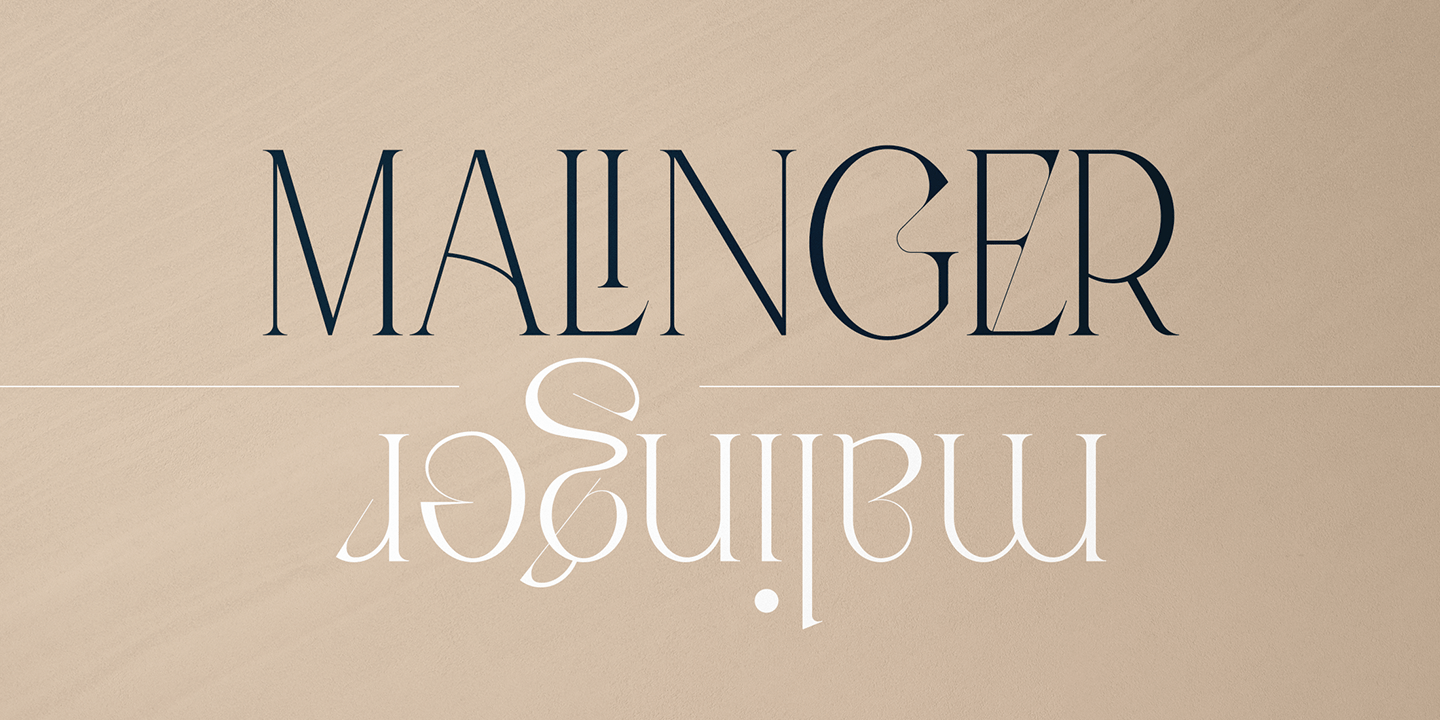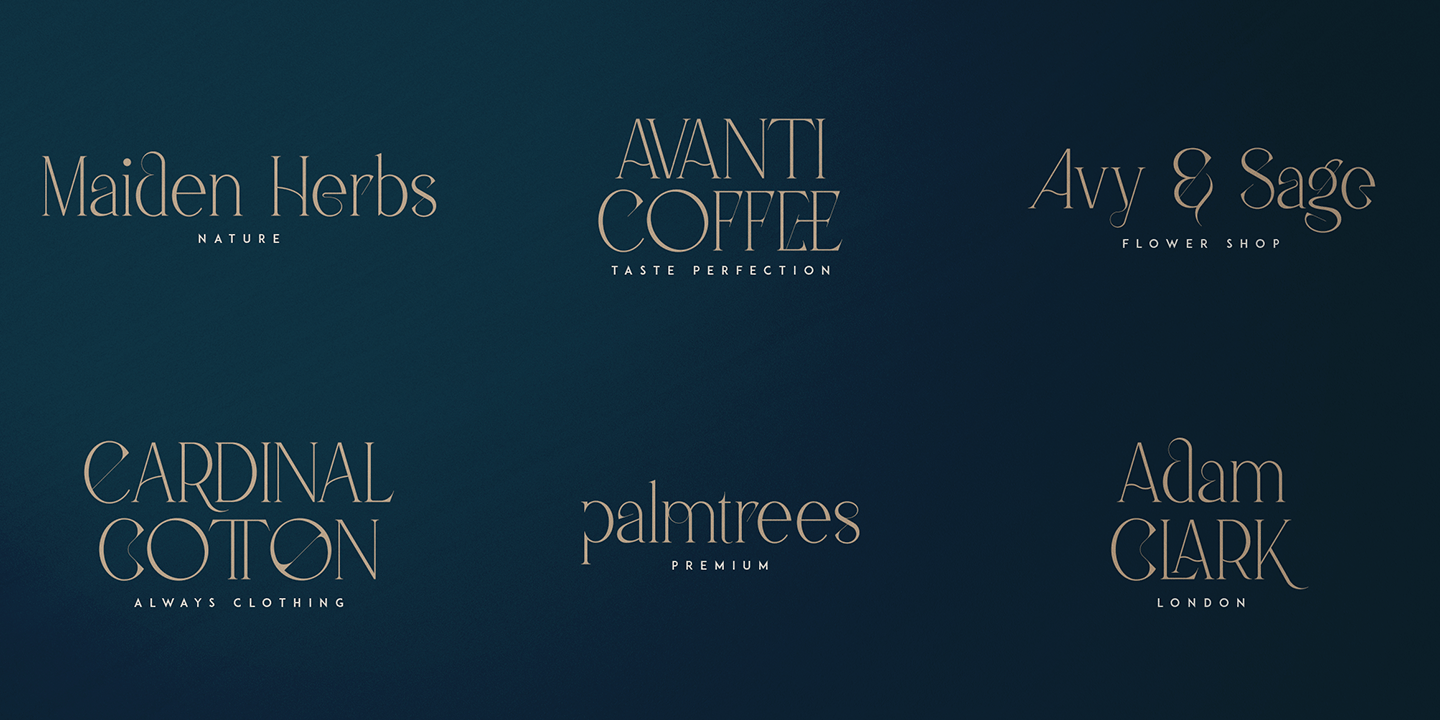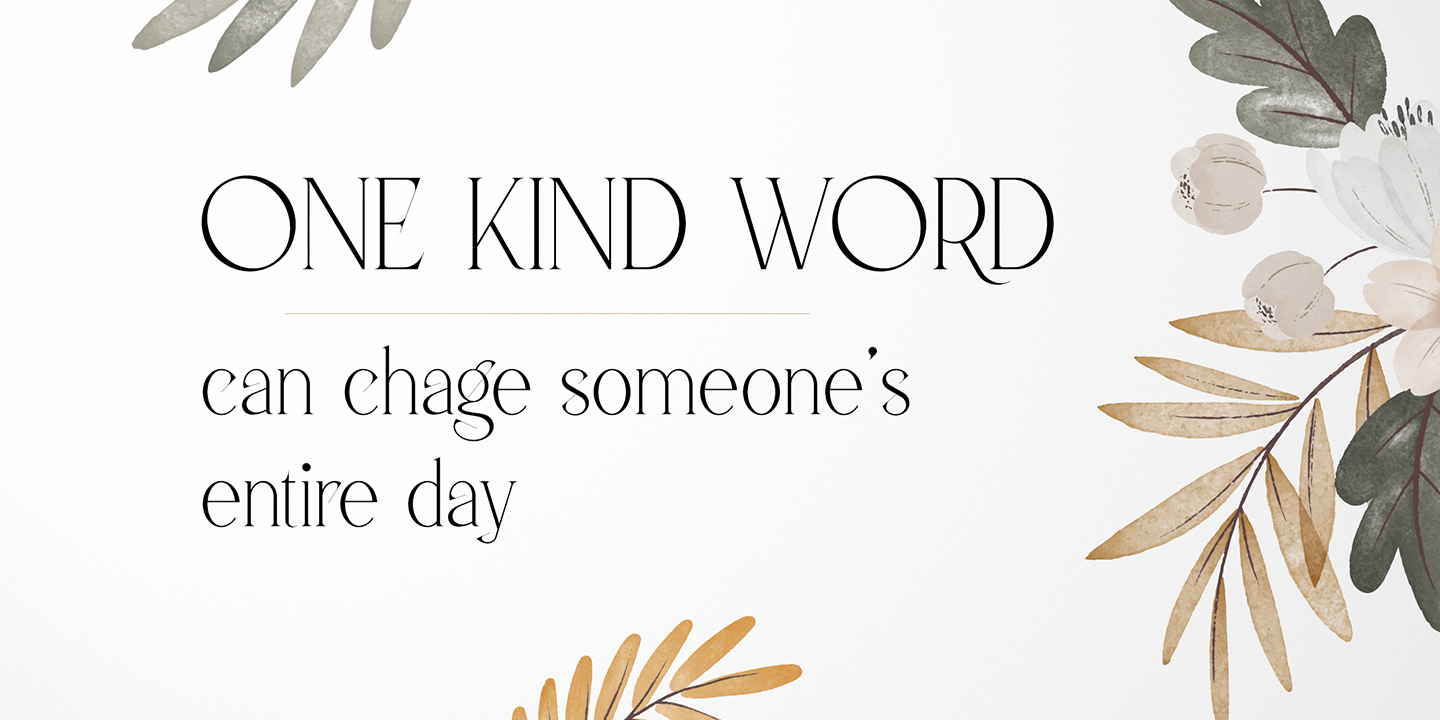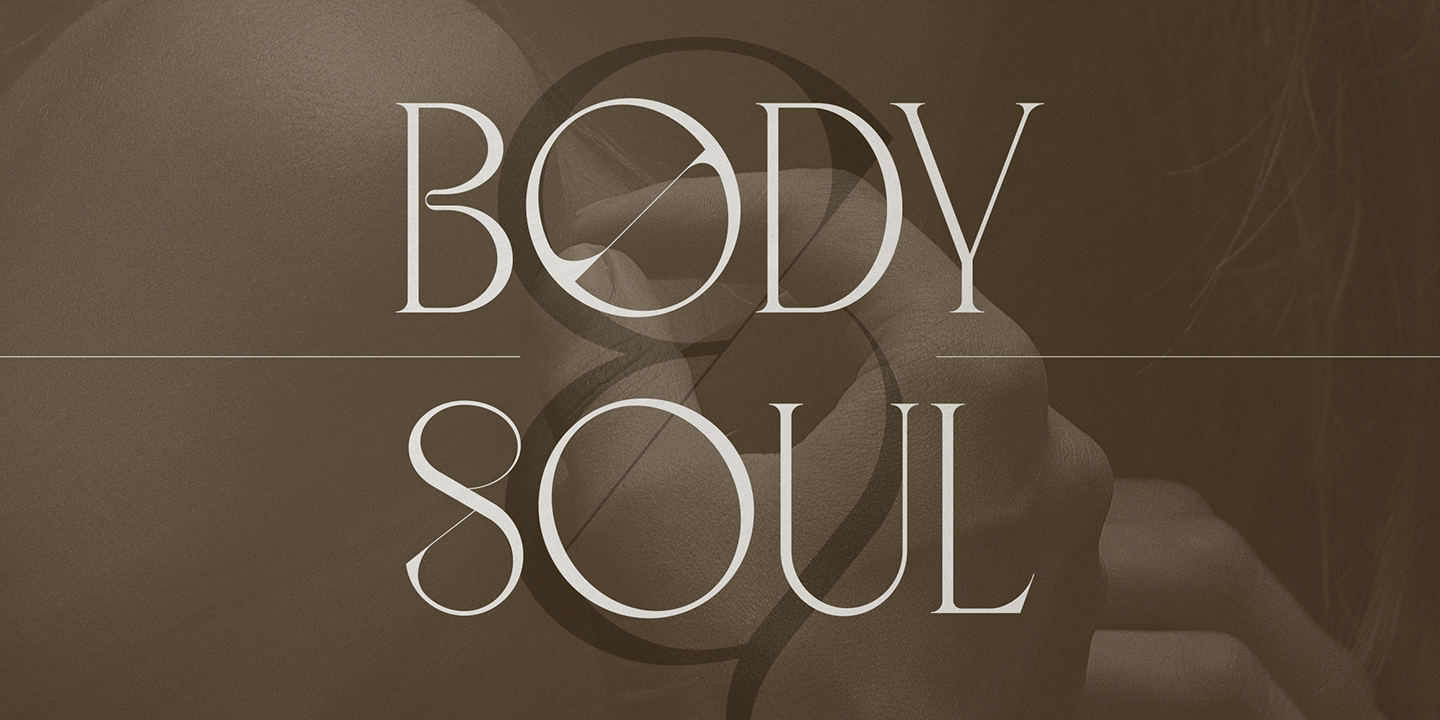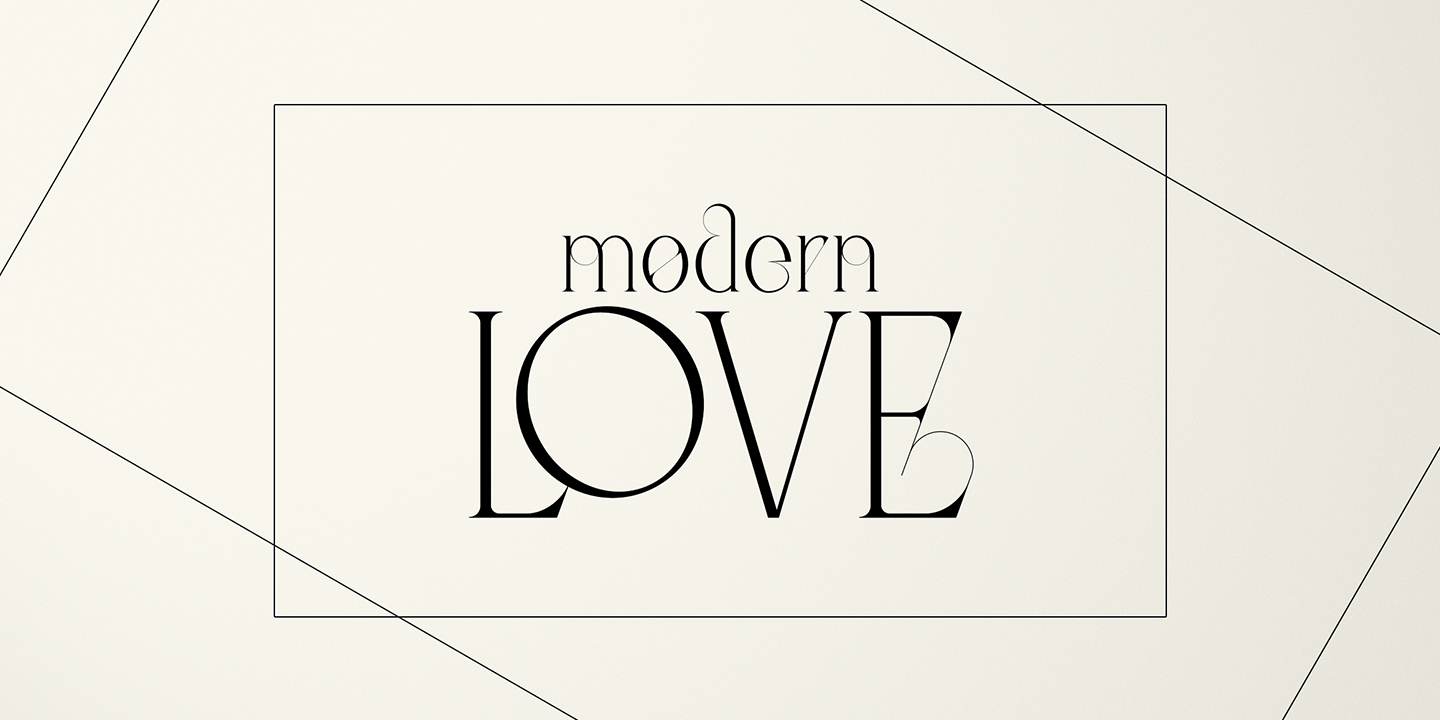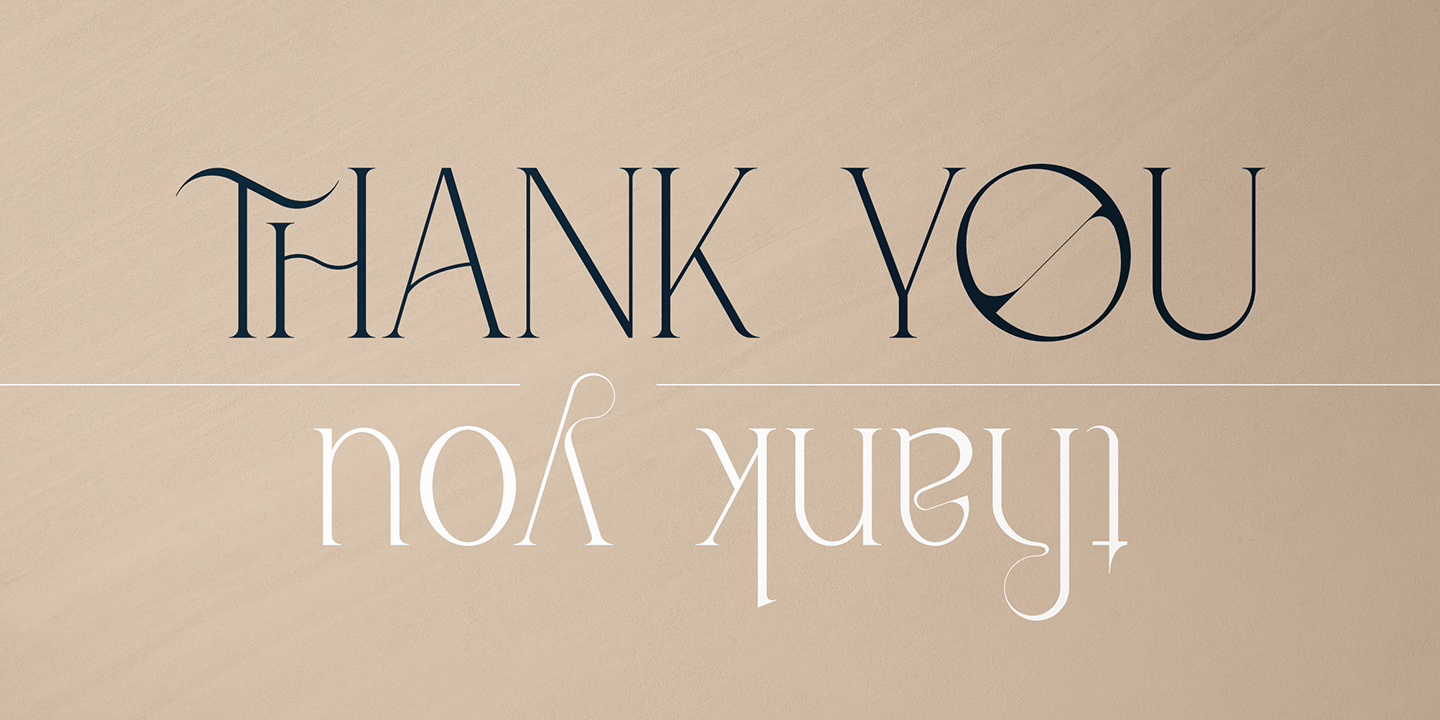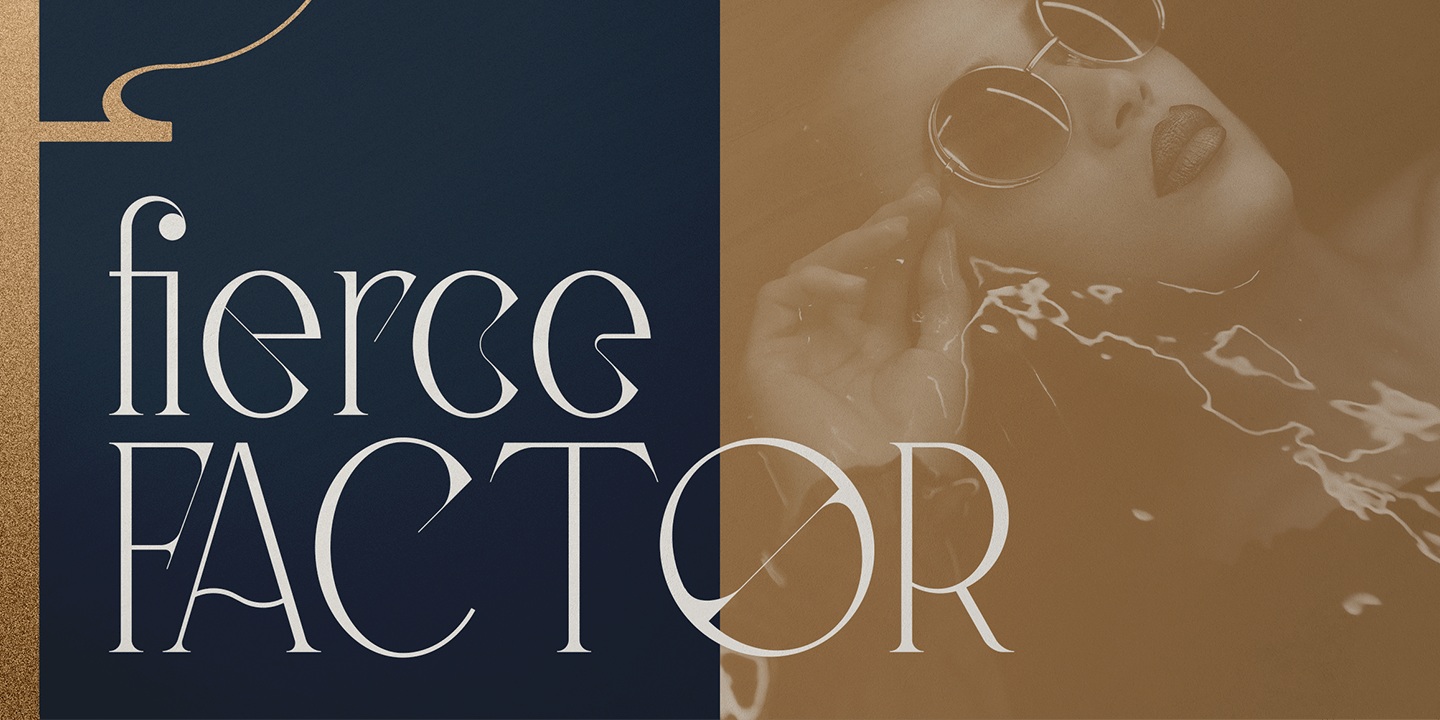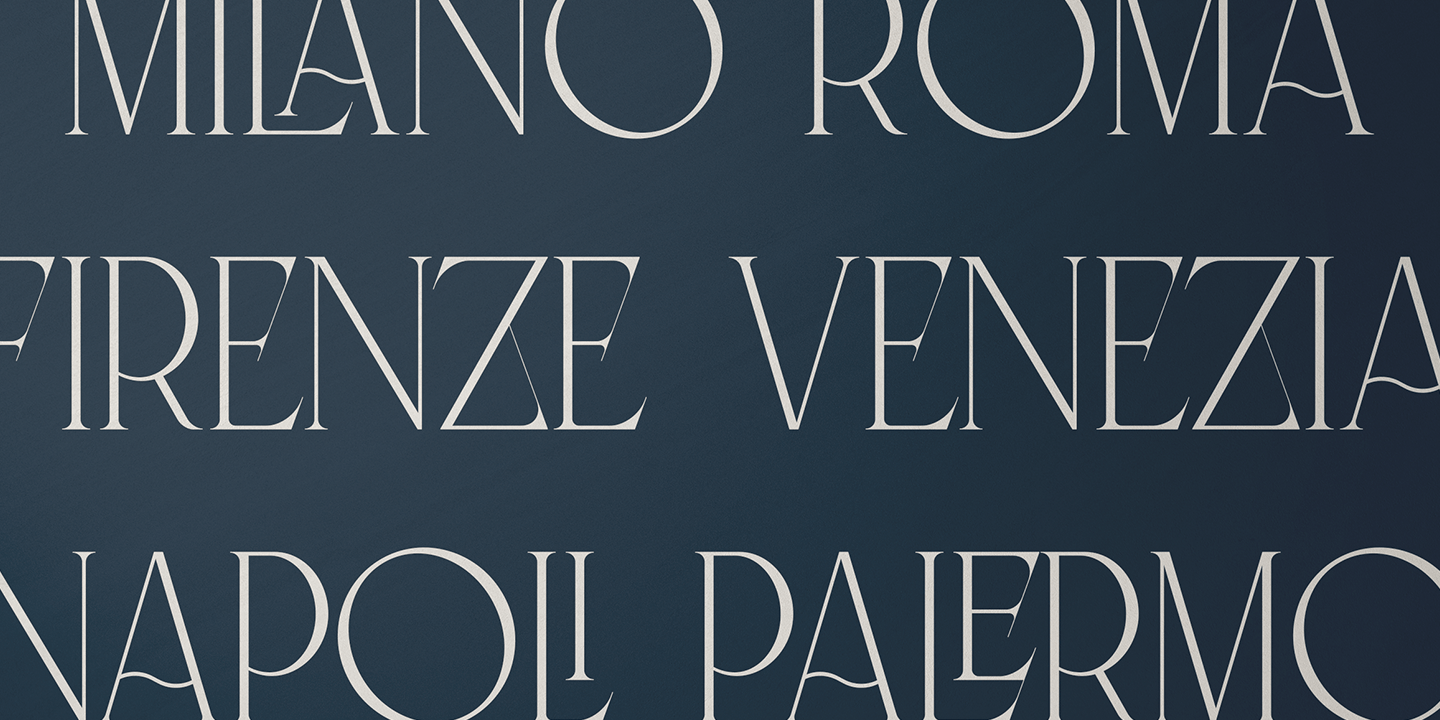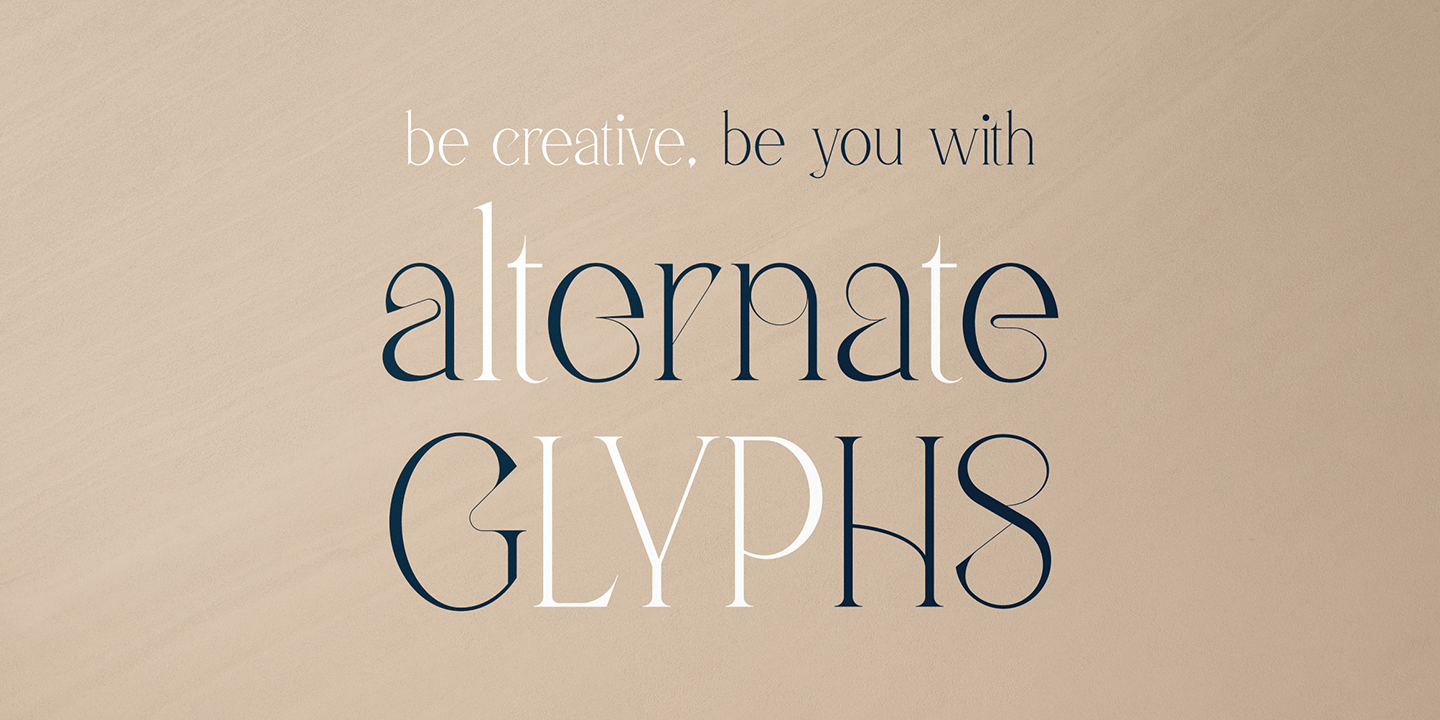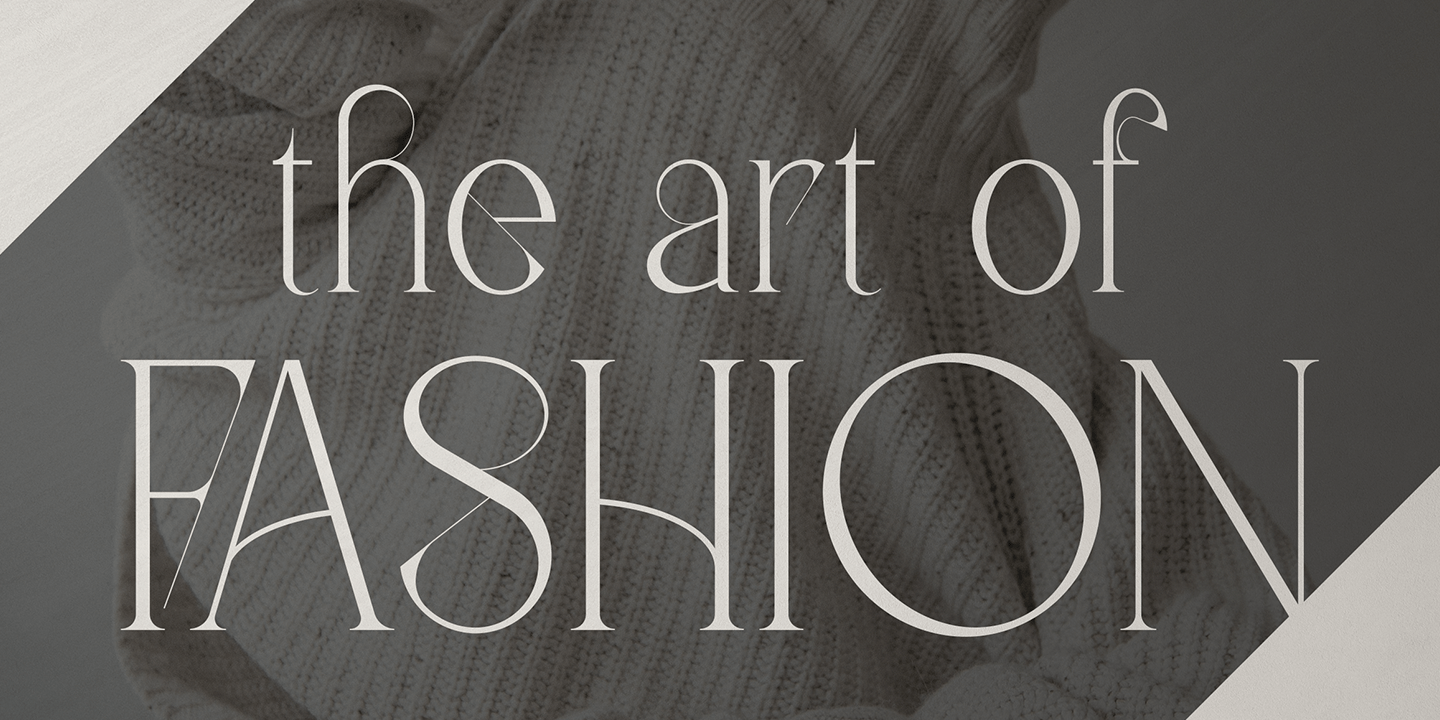
Malinger VP
Introducing Malinger - Stylish Serif font - latin and cyrillic
Malinger is stylish and creative font loaded with 95 languages support, alternate and ligature glyphs to make you typography truly unique!
Language Support : Belarusian, Bosnian, Bulgarian, Chechen, Macedonian, Russian, Serbian, Afrikaans, Albanian, Asu, Basque, Bemba, Bena, Breton, Chiga, Colognian, Cornish, Czech, Danish, Dutch, Embu, English, Estronian, Faroese, Filipino, Finnish, French, Friulian, Galician, Ganda, German, Gusii, Hungarian, Indonesian, Irish, Italian, Jola-Fonyi, Kabuverdianu, Kalenjin, Kamba, Kikuyu, Kinyarwadna, Litvian, Lithuanian, Lower Sorbian, Luo, Luxembourish, Luyia, Machame, Makhuwa-Meetoo, Makonde, Malagasy, Maltese, Manx, Meru, Morisyen, North Ndebele, Norwegian Bokm ål, Norwegian Nynorsk, Nyankole, Ormo, Polish, Portuguese, Quechua, Romanian, Romansh, Rombo, Rundi, Rwa, Samburu, Sango, Sangu, Scottish Gaelic, Sena, Shambala, Shona, Slovak, Soga, Somali, Spanish, Swahili, Swedish, Swiss German, Taita, Teso, Turkish, Ukrainian, Upper Sorbian, Uzbek (Latin), Volap ük, Vunjo, Walser, Welsh, Western Frisian, Zulu
FEATURES
• Uppercase, lowercase, numeral, punctuation & Symbol
• ligature glyphs
• alternates
• Multilingual support - 95 languages
• Cyrillic support